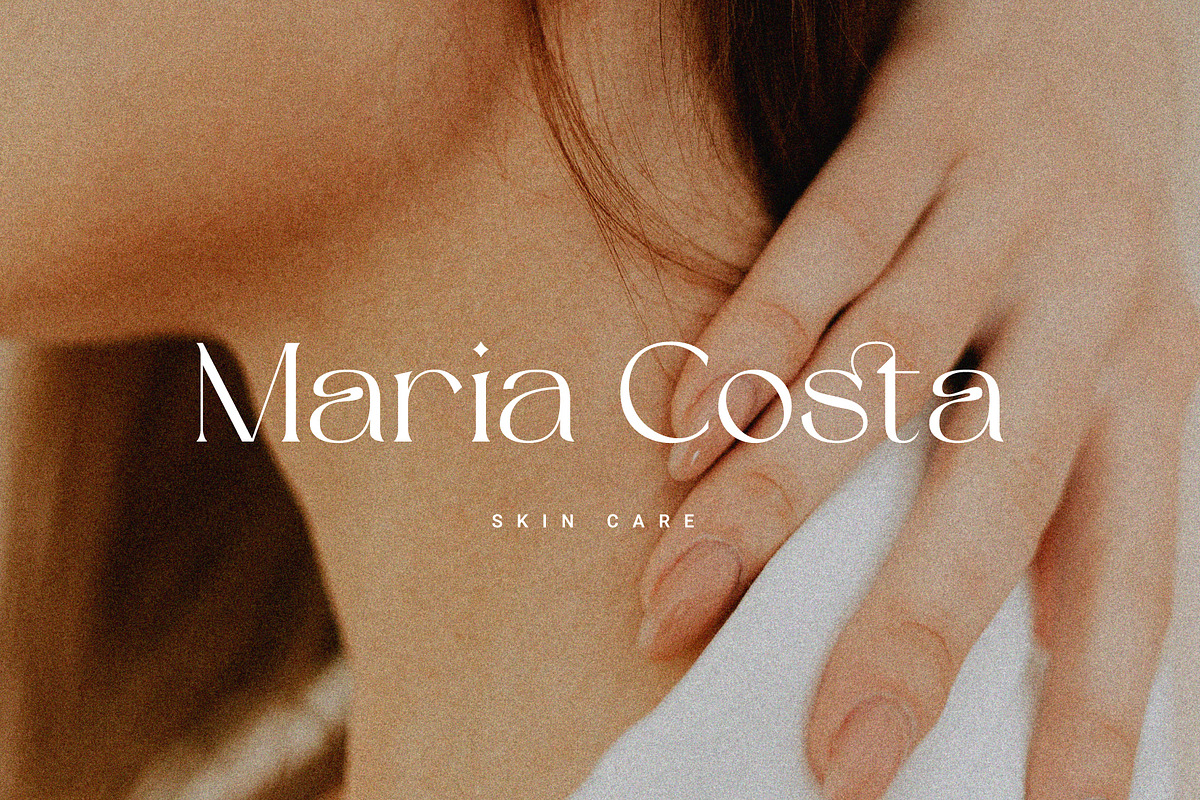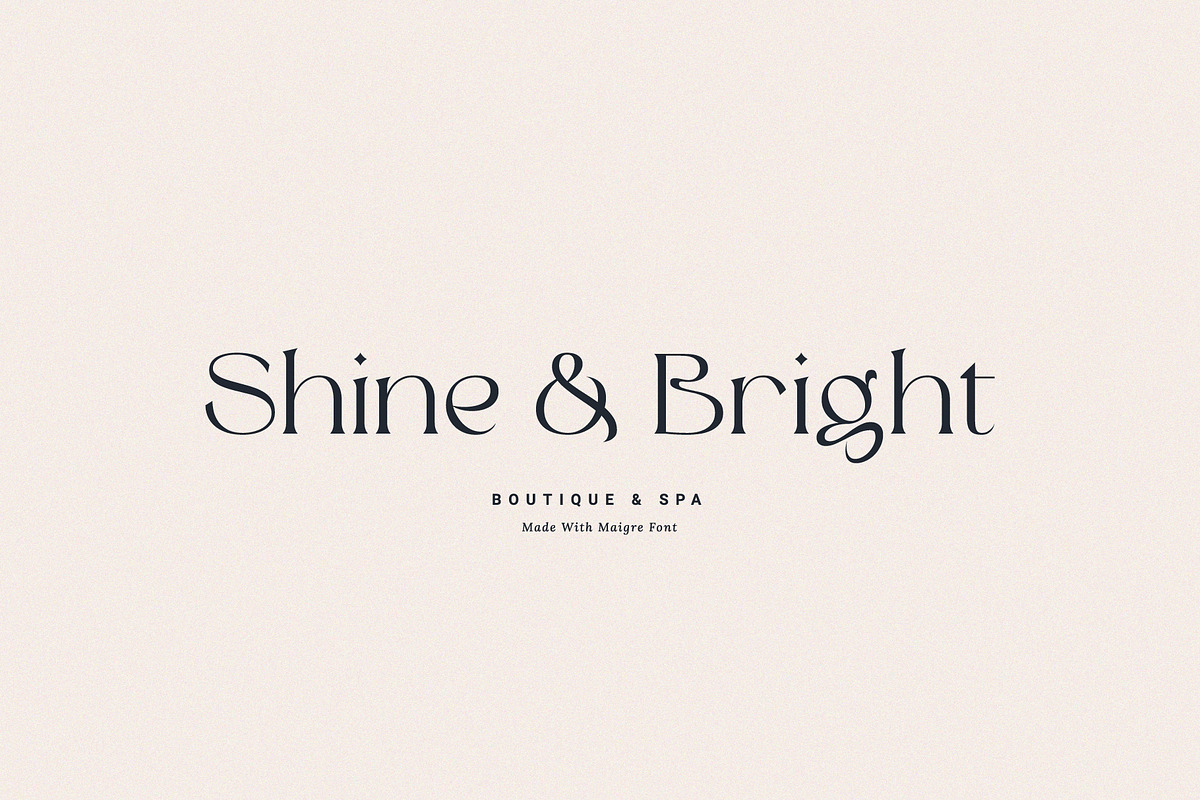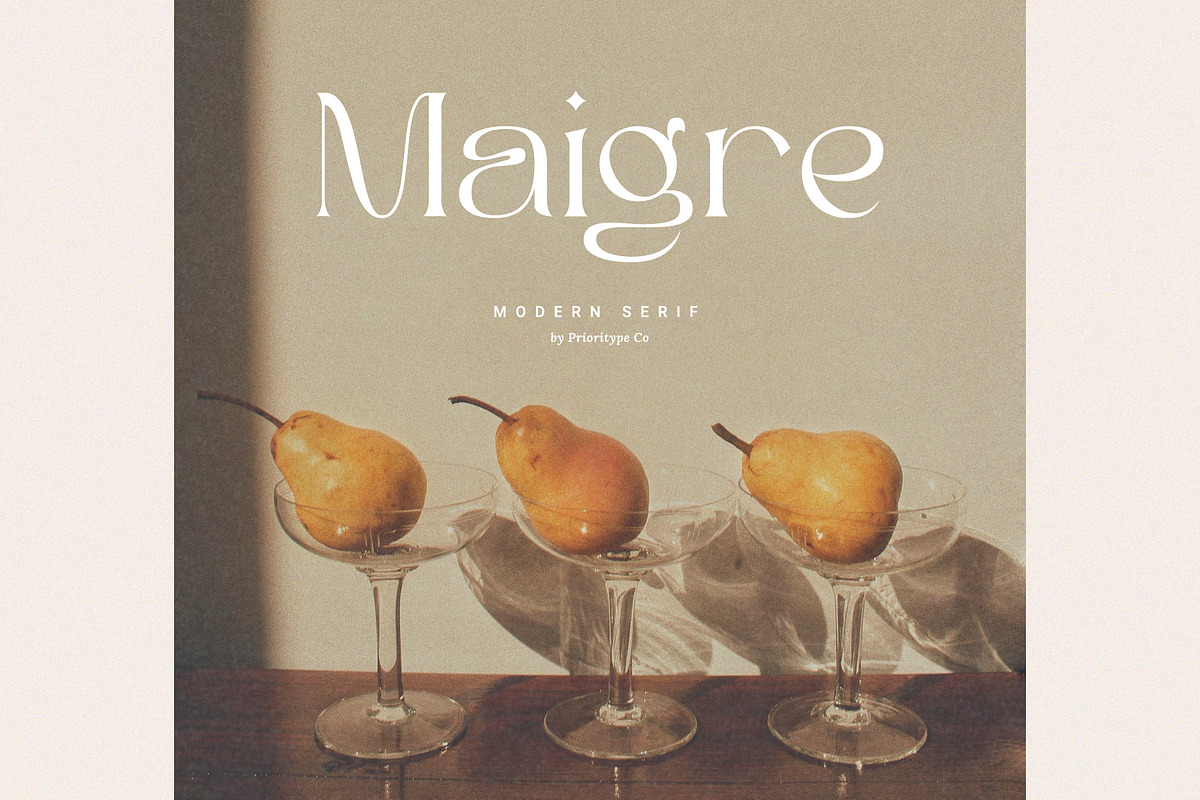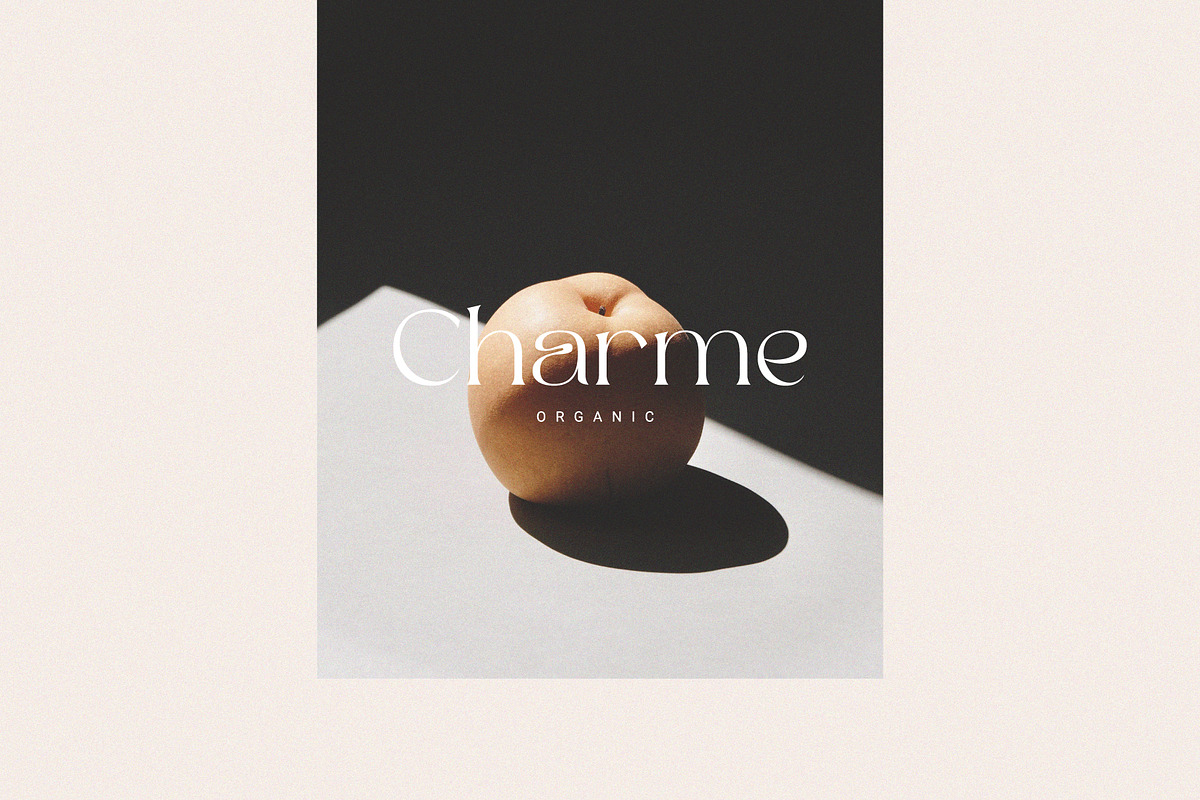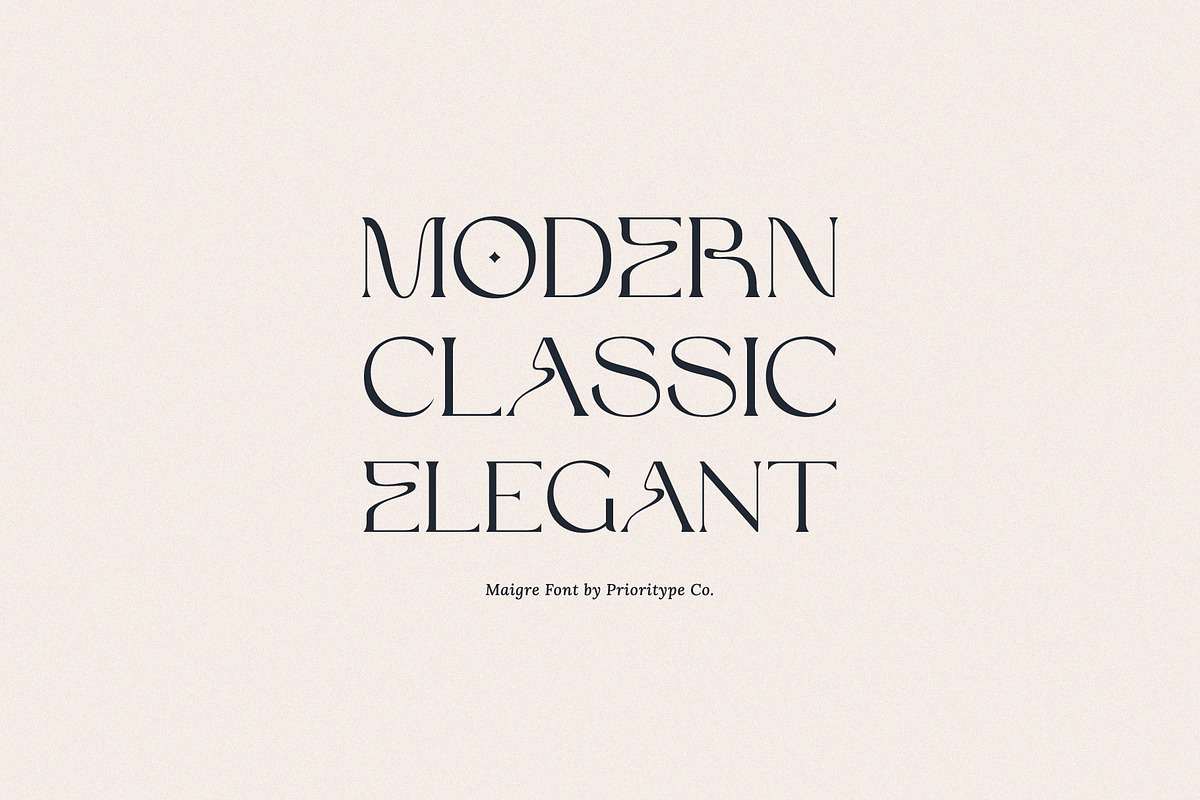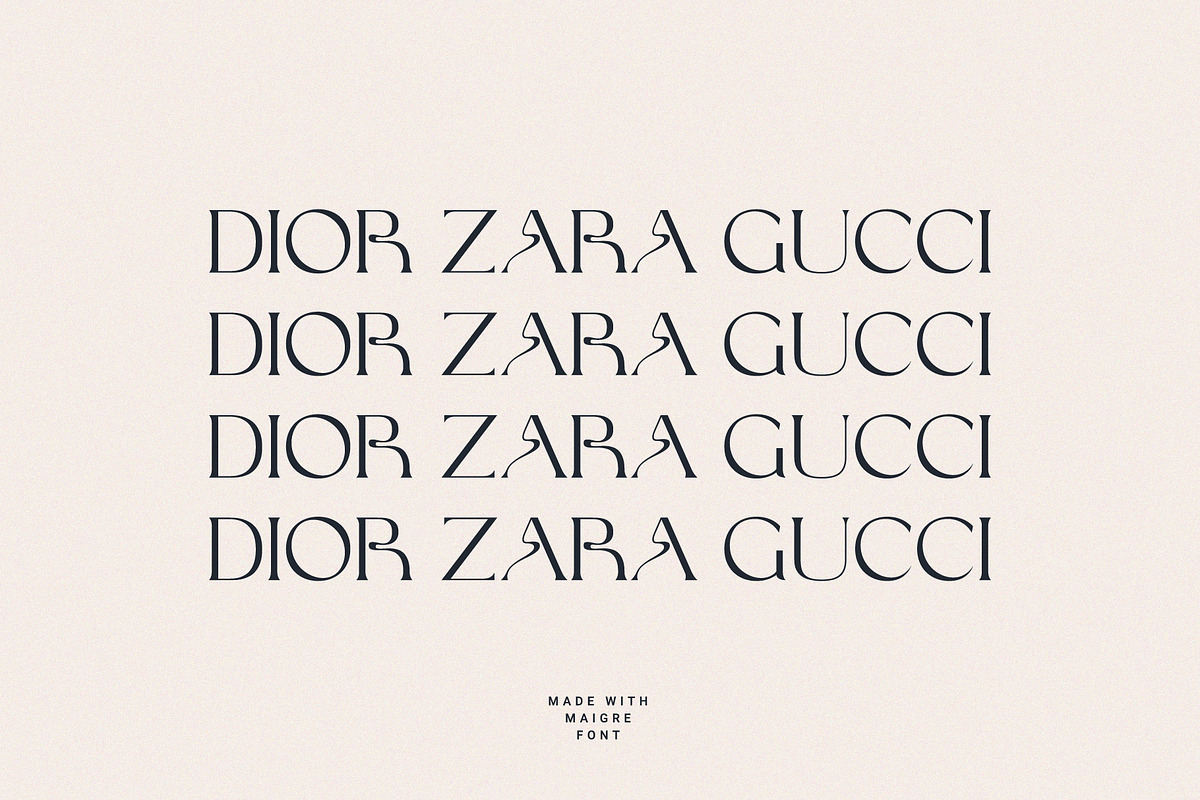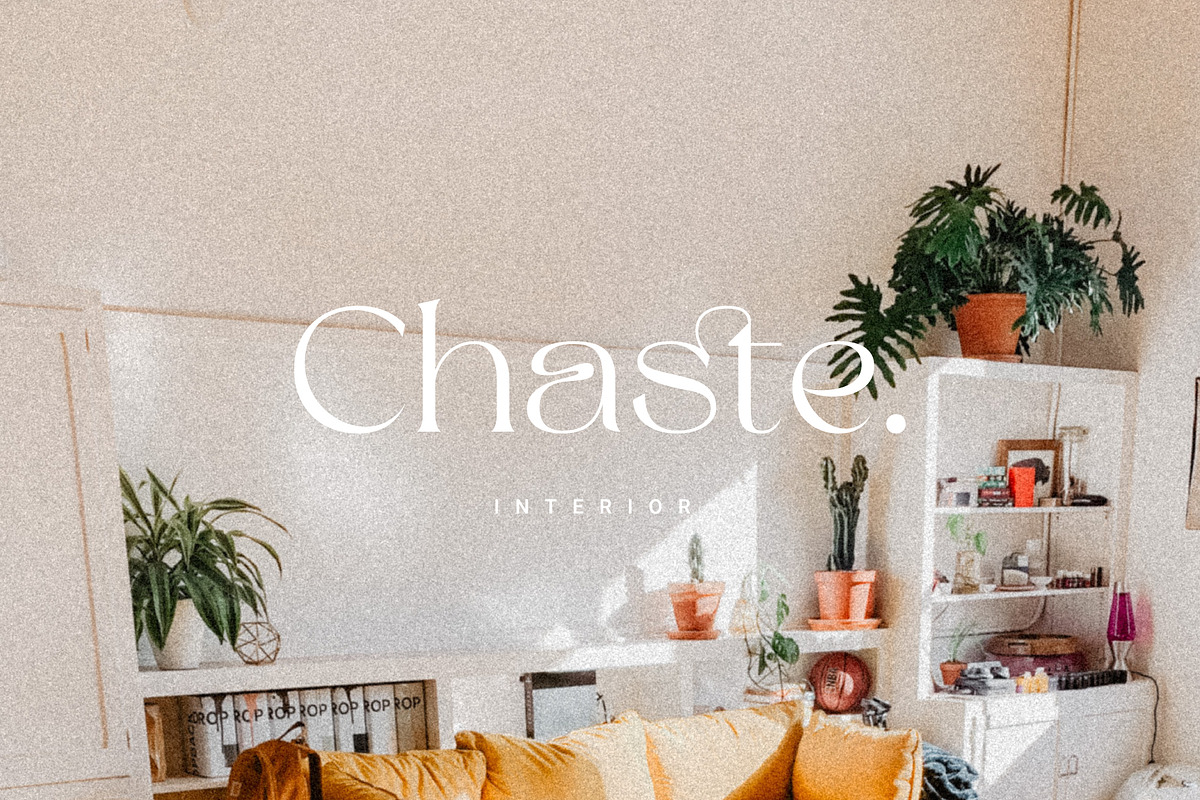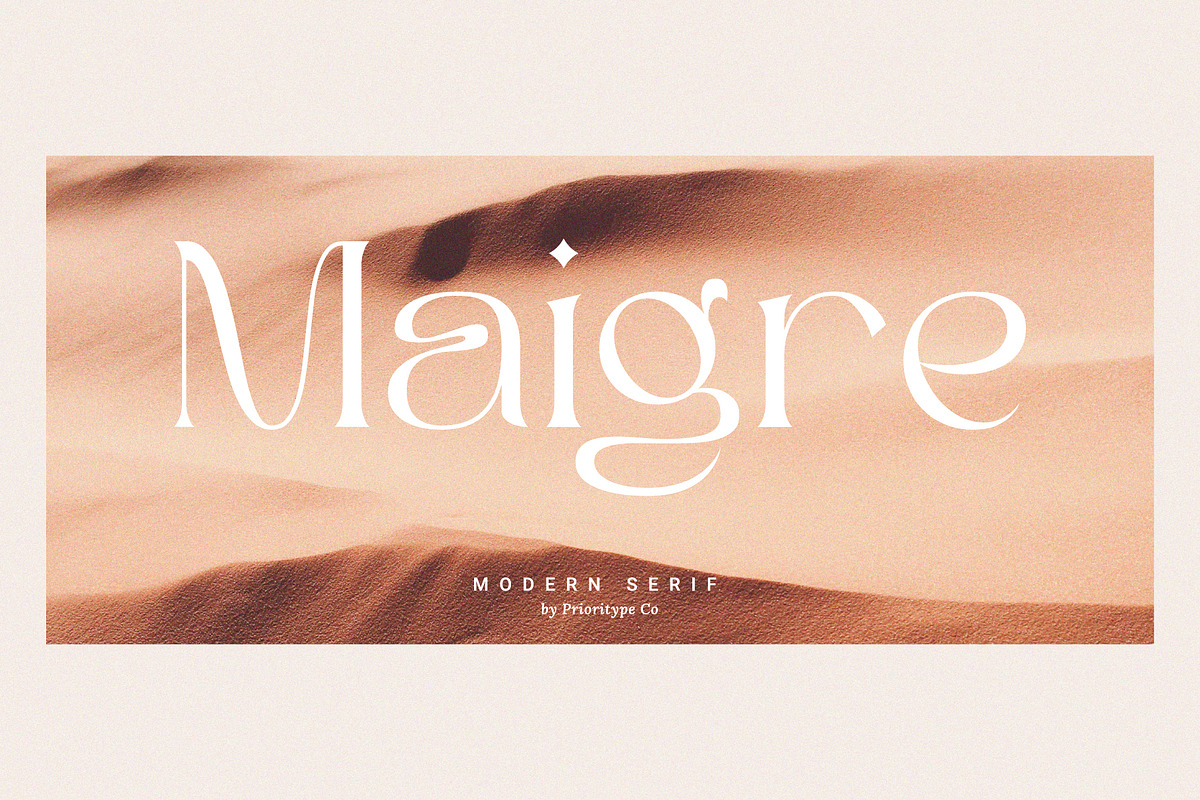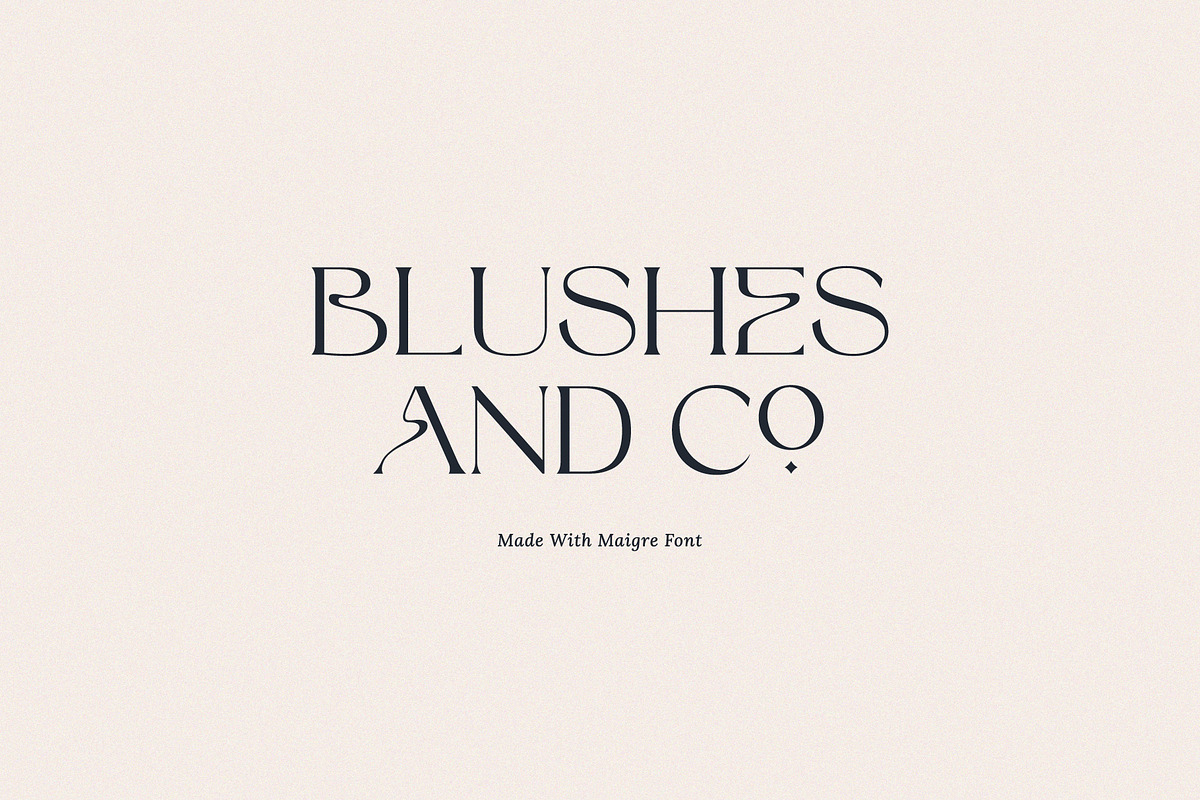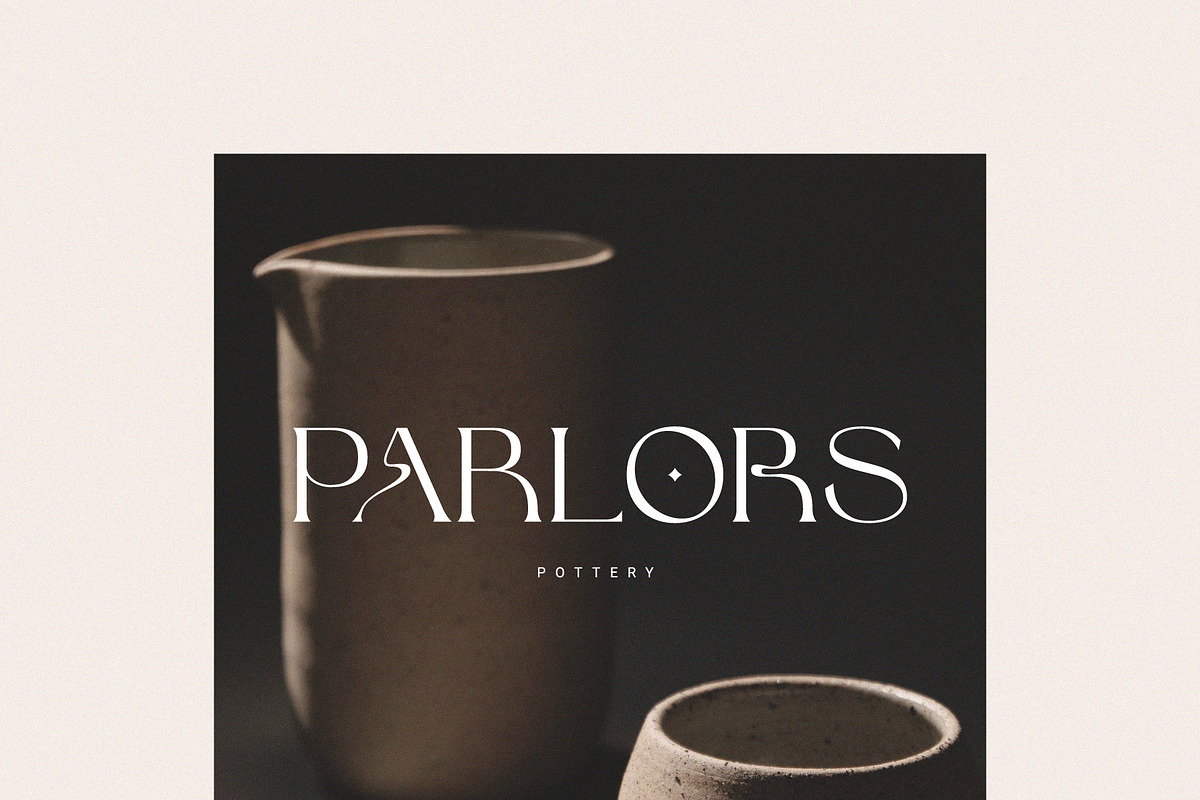
Maigre - Modern Serif
"Maigre Font" is a modern, classic and elegant serif typeface. It is suitable for branding designs, logos, magazines and social media posts.